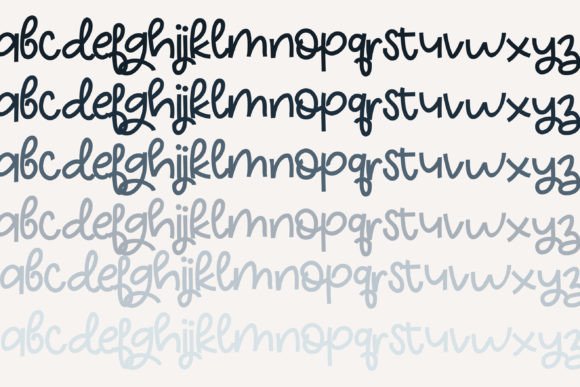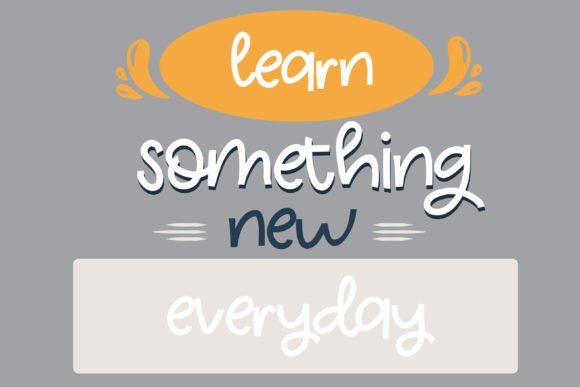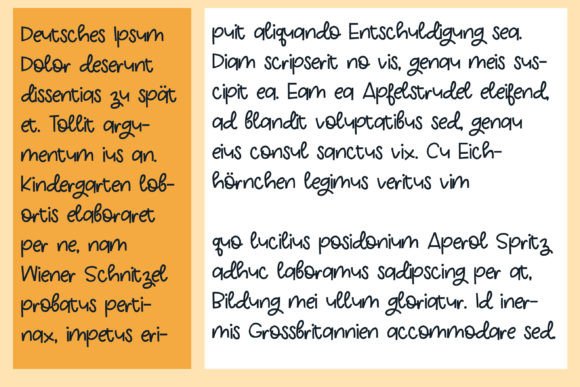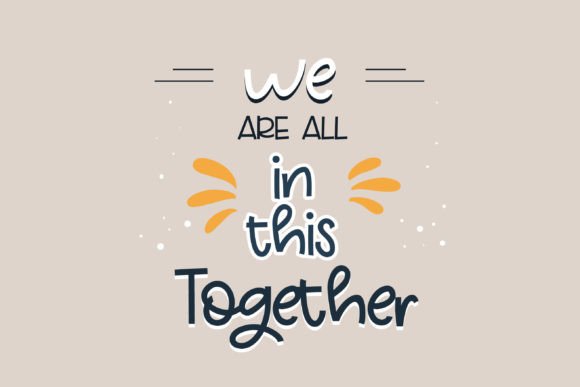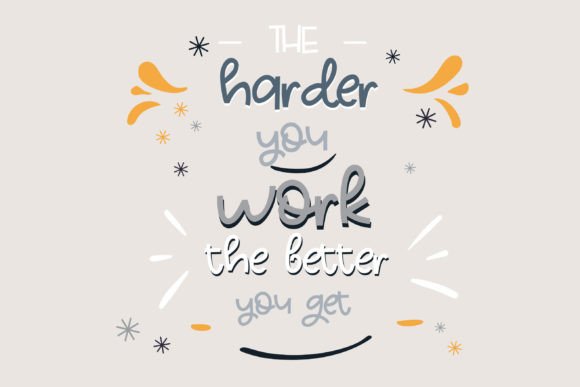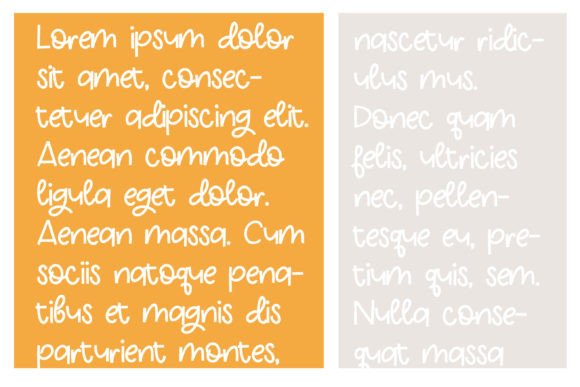
Introduction to Homegrown Traditions Font
Have you ever found yourself stuck on a design project, desperately searching for the perfect font to bring your creative vision to life? You’re not alone. We’ve all been there – pouring over font collections, scrolling through design resources, and scouring the web for that one special something that will elevate our work and make it truly unique. For designers like you, the search is over. Introducing the Homegrown Traditions Font, a simple yet charming sans script that’s sure to add a touch of personality to your designs.
With its cursive-like elements and whimsical feel, this hand-crafted font is the perfect solution for designers who want to add a friendly, personalized touch to their projects. Whether you’re working on a creative project or simply need a reliable design resource, the Homegrown Traditions Font is here to help. And the best part? It’s available for free download, complete with a transparent background and high-quality design that’s sure to impress.
Key Features of Homegrown Traditions Font
- High-quality design: The Homegrown Traditions Font is crafted with attention to detail, making it perfect for creative projects that require a unique touch.
- Large character set: The Homegrown Traditions Font includes a wide range of characters, including uppercase and lowercase letters, numbers, and punctuation marks.
- Perfect for creative projects: This font is ideal for use in creative projects such as invitations, posters, and social media graphics, where a unique and eye-catching design is essential.
Honest Review: Homegrown Traditions Font
I recently had the chance to work with the Homegrown Traditions Font, and I must say it’s been a great addition to my design resource library. The font is a beautiful, high-quality addition to any creative project, and it’s available for a free download.
One of the things that really stands out about this font is its versatility. It’s perfect for projects that need a touch of rustic charm, but it also works well for more modern designs. The font’s transparent background makes it easy to layer and combine with other design elements.
Here are some things that work well with the Homegrown Traditions Font:
- ✨ Versatile design that works well for a variety of creative projects
- ✨ High-quality font that’s perfect for print and digital designs
One of the limitations of this font is that it may not be suitable for projects that require a more modern or sleek look. The font’s rustic charm may not be the best fit for designs that need to be more minimalist or futuristic.
Overall, I’m really impressed with the Homegrown Traditions Font. It’s a great addition to any design library, and it’s perfect for designers who are looking for a high-quality font that’s perfect for creative projects.
Tips for Getting the Most Out of Homegrown Traditions Font
For the best results, use the Homegrown Traditions Font with a transparent background to create a seamless and cohesive design. Experiment with different font sizes and styles to add depth and visual interest to your creative project.